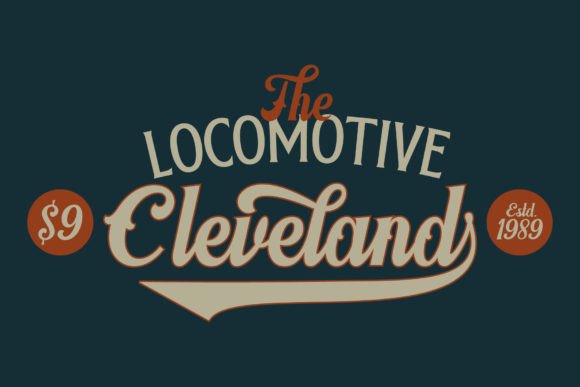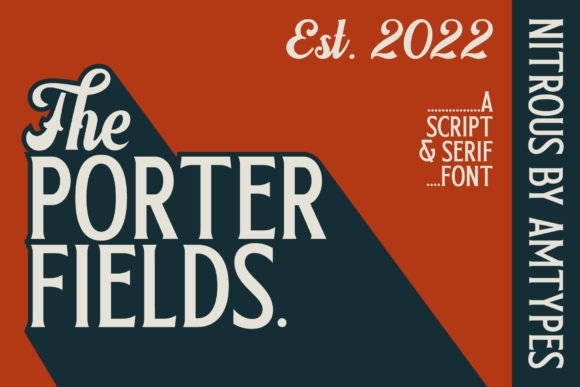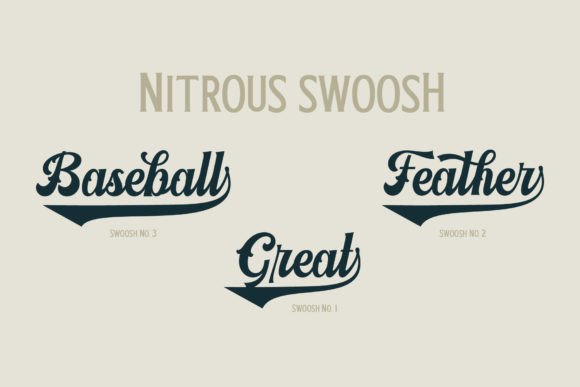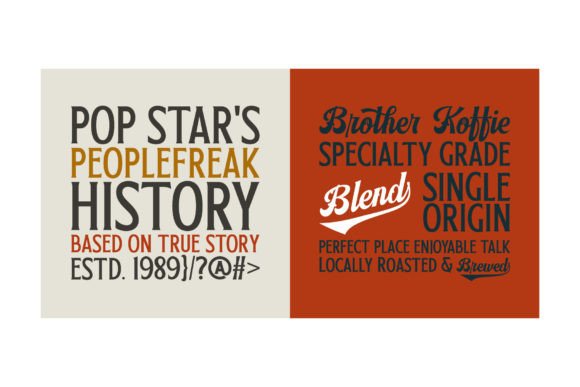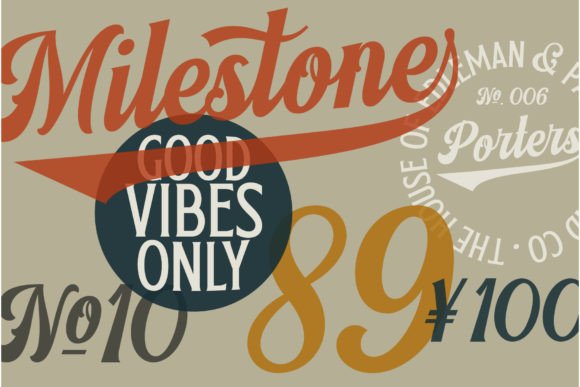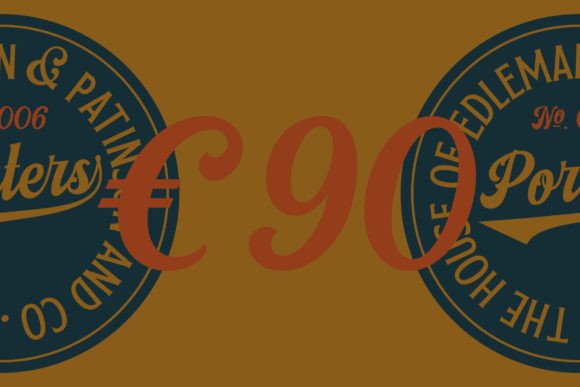
Introduction to Nitrous Font Font
Fonts play a crucial role in design, and the Nitrous Font font is a typeface that brings both character and versatility to any project. Whether you’re working on a branding project, a website, or a print design, the Nitrous Font font offers a unique style that can elevate your work.
Nitrous is a script and serif typeface with elegance and vintage looks.
You can design beautiful, elegant, and diverse typographic elements with it This font duo is effective on product packaging, particularly for wares that prefer a handcrafted, artisan approach to their finished presentation.
Key Features of Nitrous Font Font
Why Choose Nitrous Font Font?
The Nitrous Font font is more than just a typeface – it’s a design tool that helps you communicate your message with style and clarity. Its unique character set and versatile design make it suitable for a wide range of applications, from elegant invitations to bold headlines.
With its carefully crafted letterforms and balanced proportions, the Nitrous Font font ensures readability and visual appeal across all mediums.
What makes Nitrous Font font special?
The Nitrous Font font stands out with its unique design, exceptional readability, and versatility across various design applications.